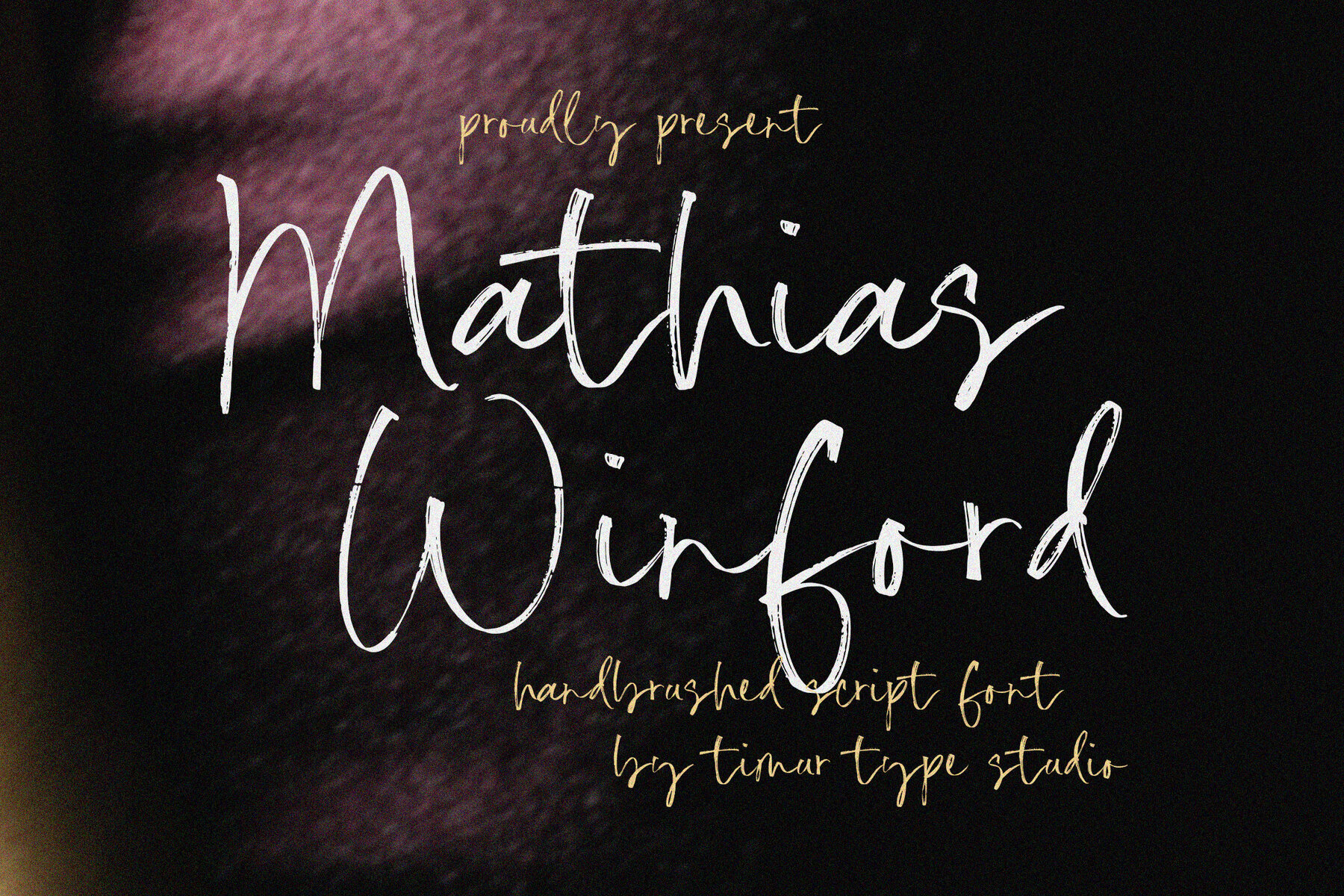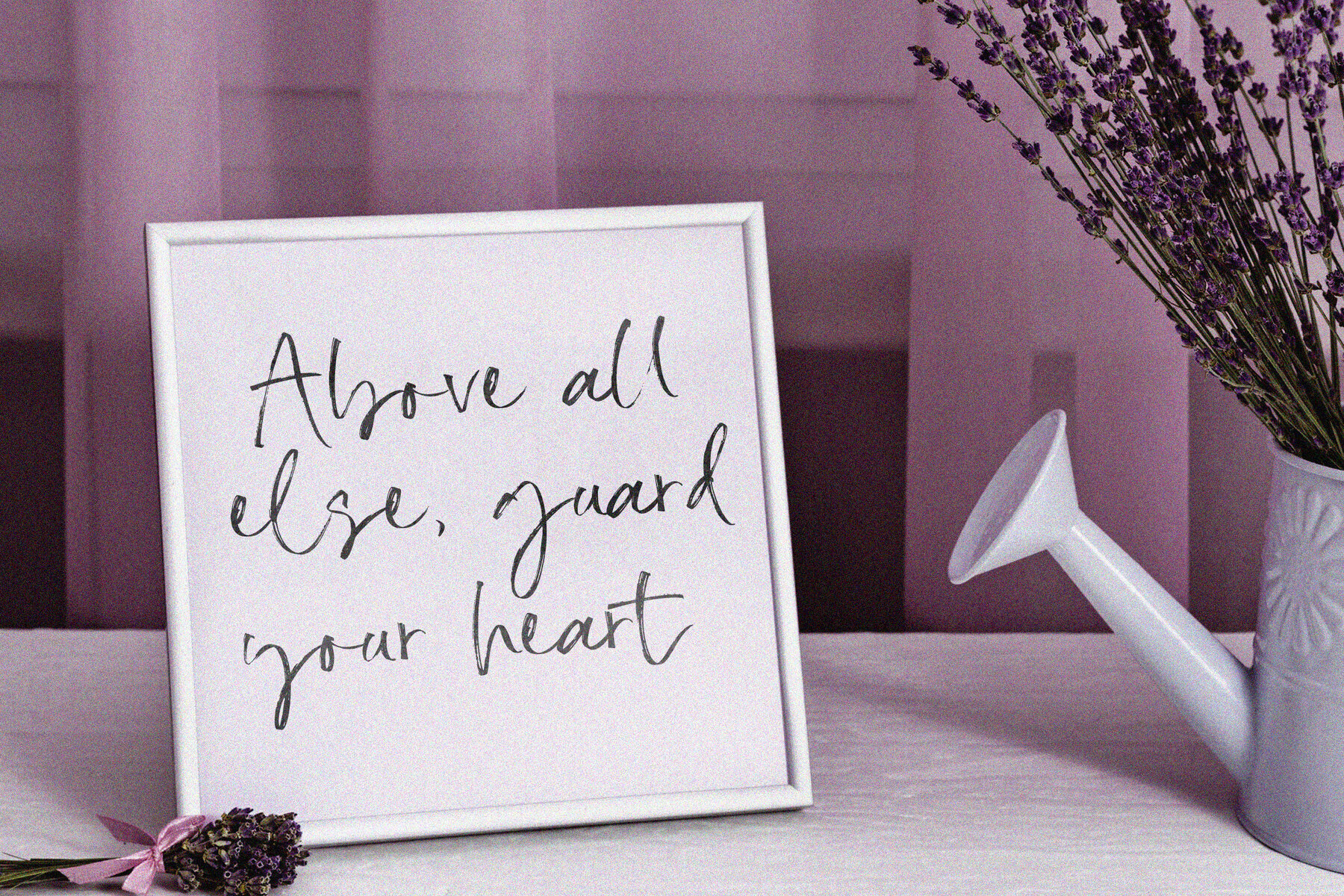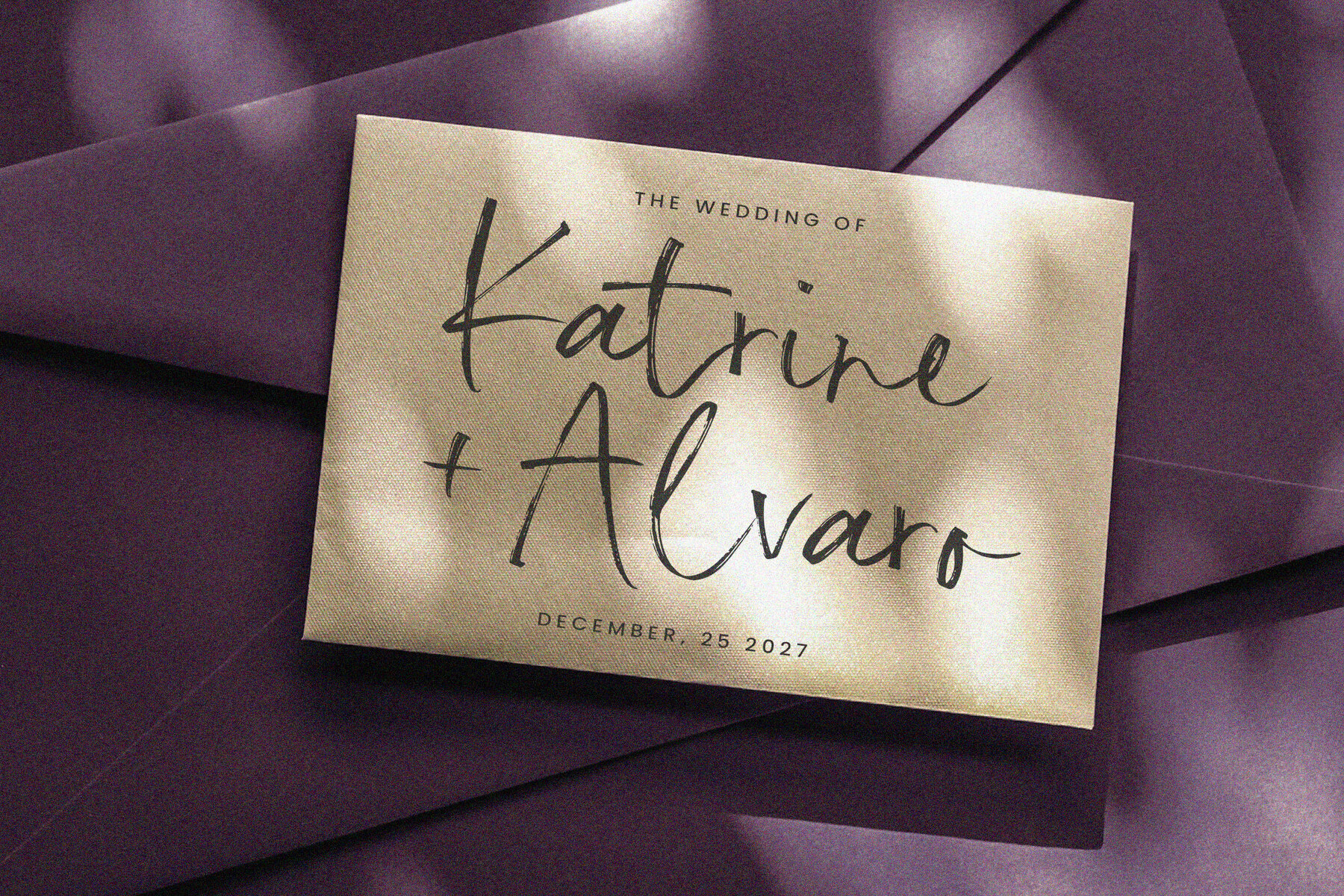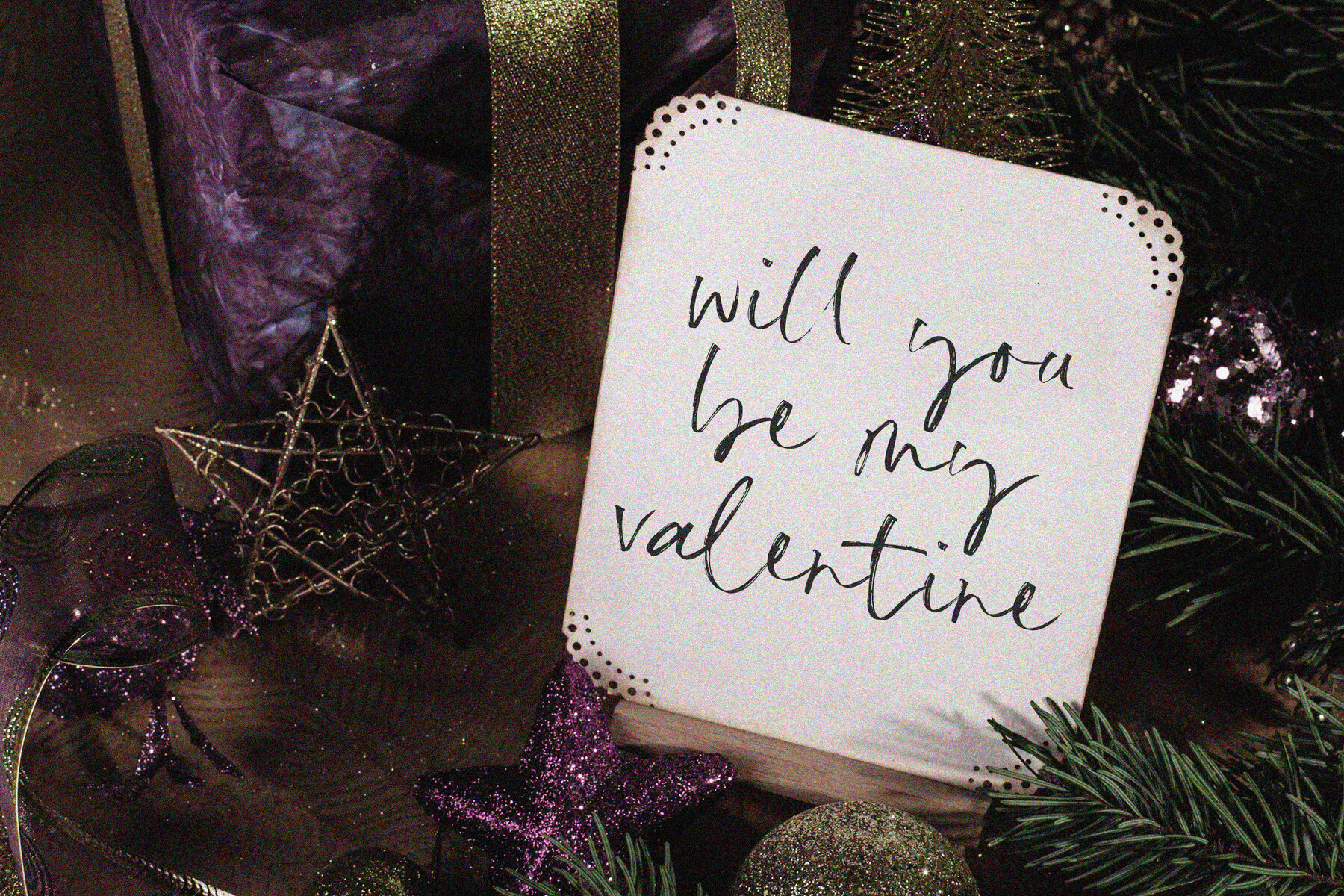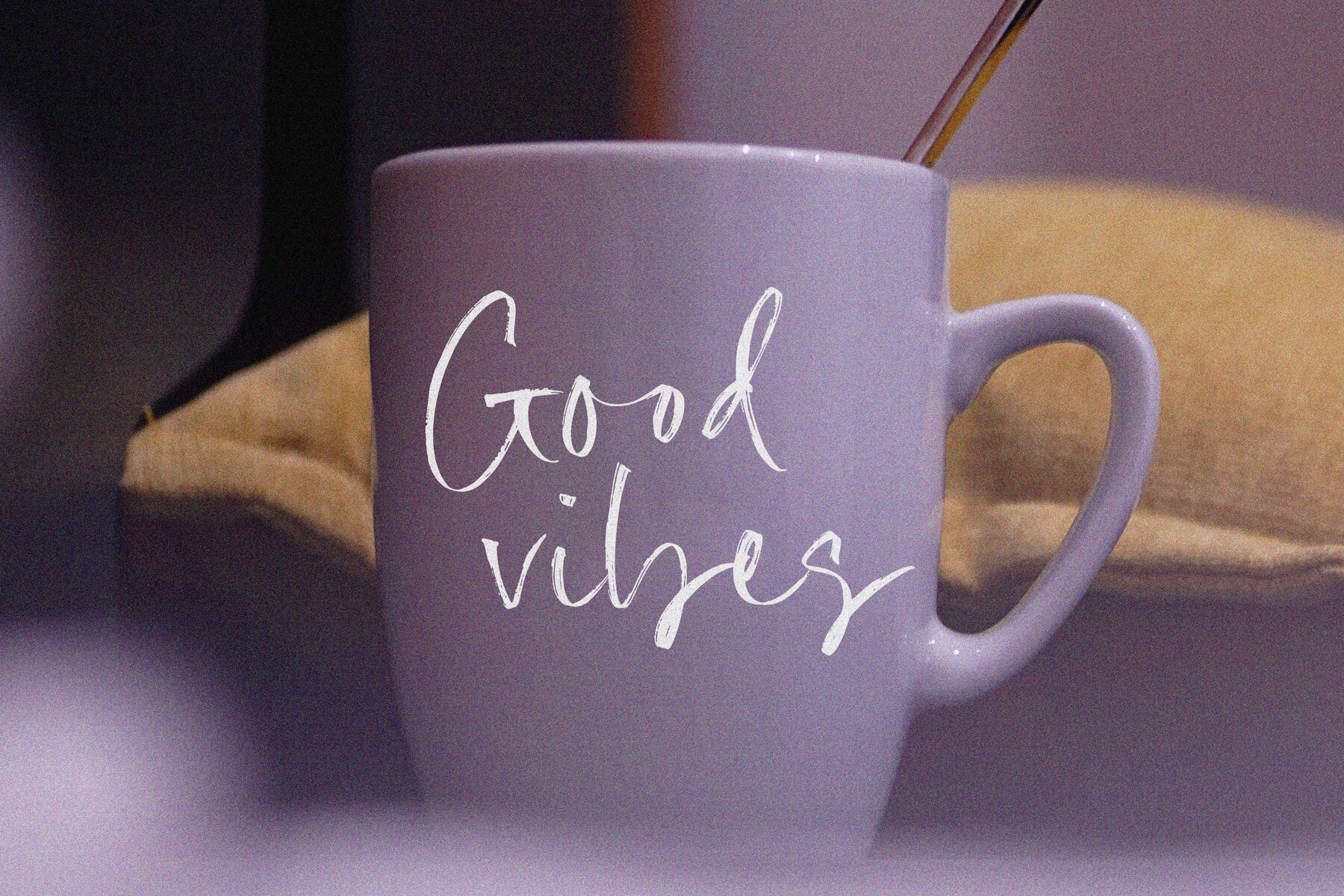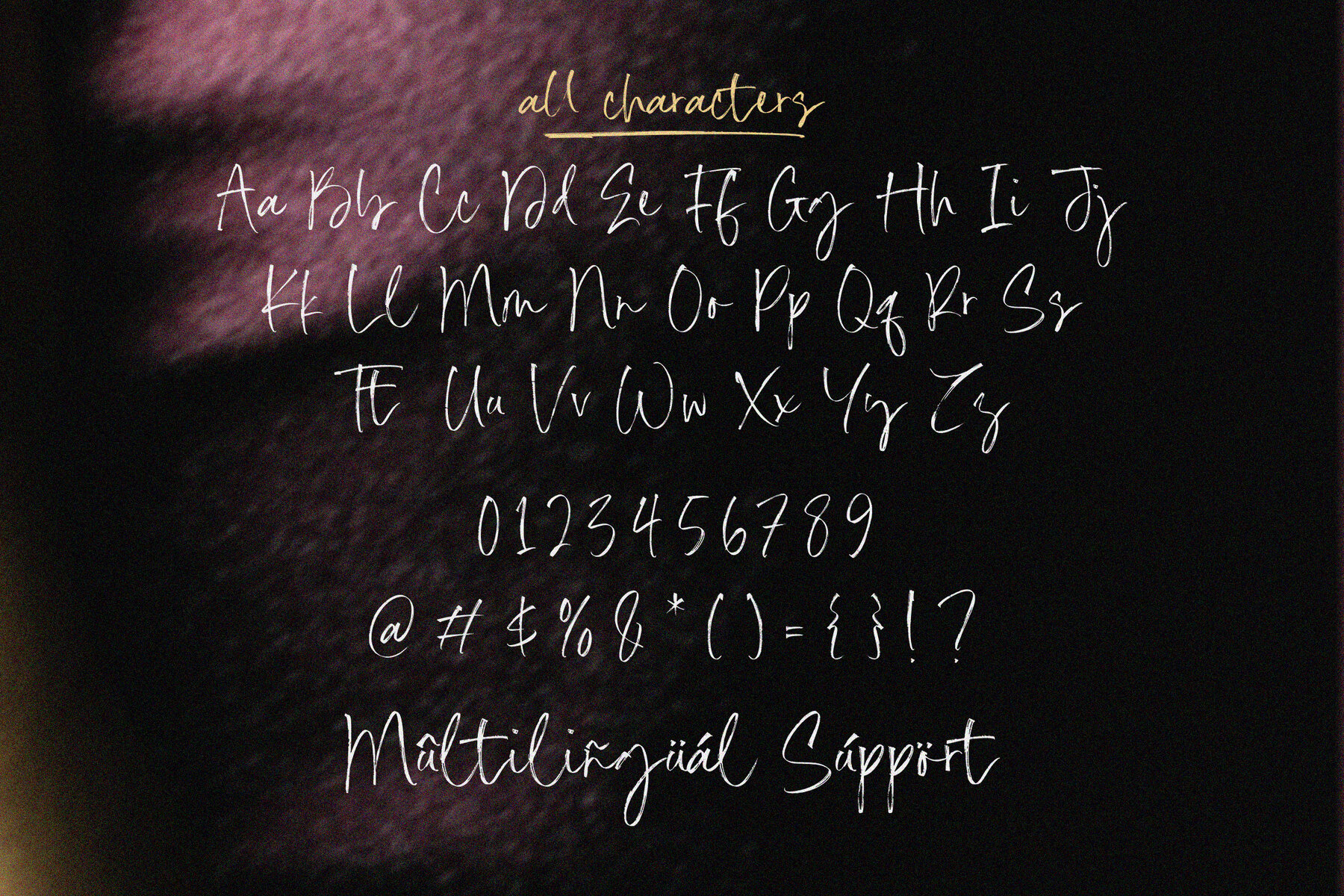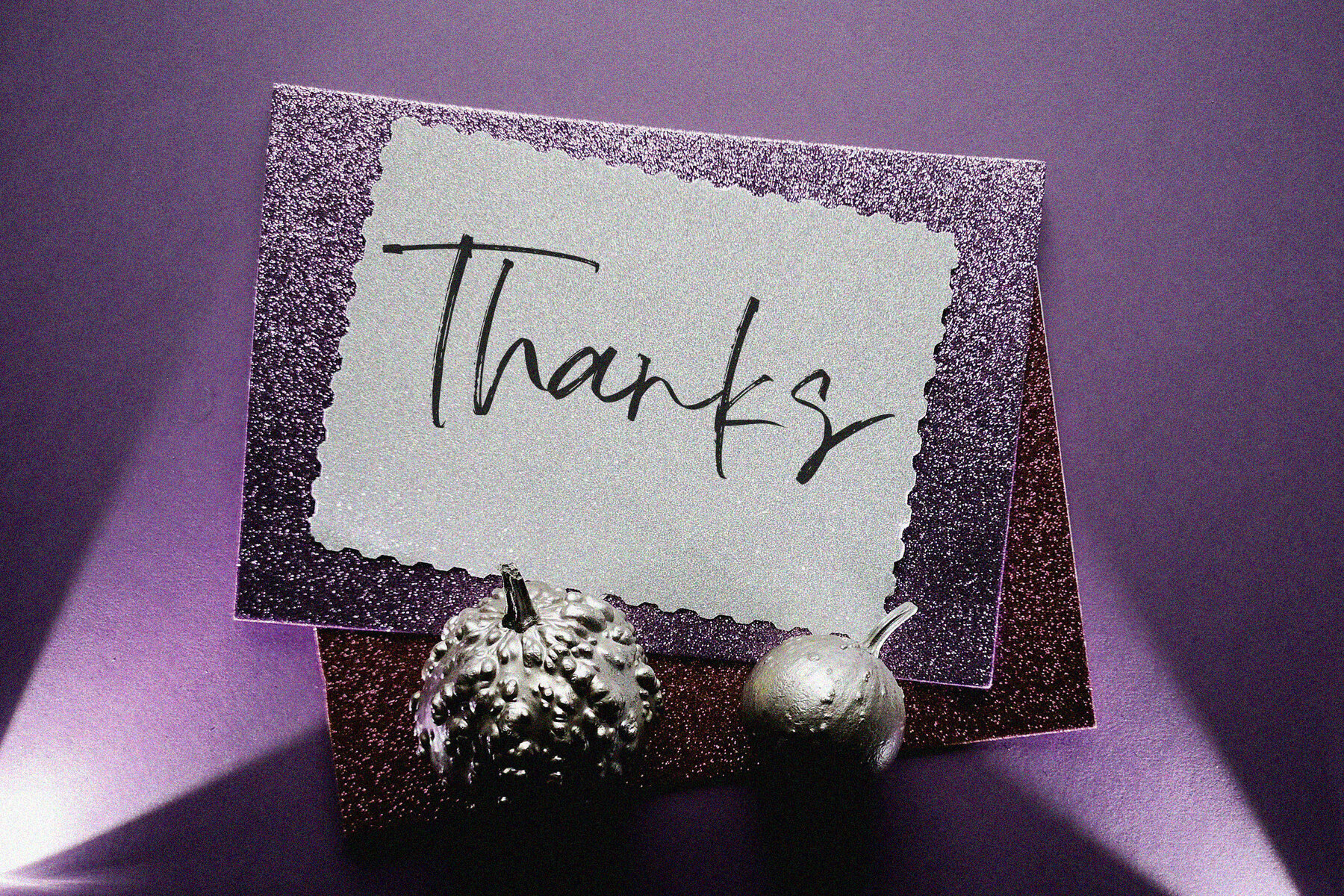
Mathias Winford Font
Mathias Winford
Mathias Winford is a sophisticated hand-brushed script font that blends elegance with boldness. The font features fluid strokes and natural ink textures, providing an authentic and refined look ideal for a variety of design projects. This versatility makes it well-suited for creating logos, branding elements, and invitations, as well as enhancing artistic typography.
The dynamic letterforms and organic flow of Mathias Winford create a handcrafted charm, adding warmth and creativity to any design. Its unique style captures attention, making it a valuable addition to your design toolkit. Whether used in digital media or print, this script font delivers a distinctive and polished impression.